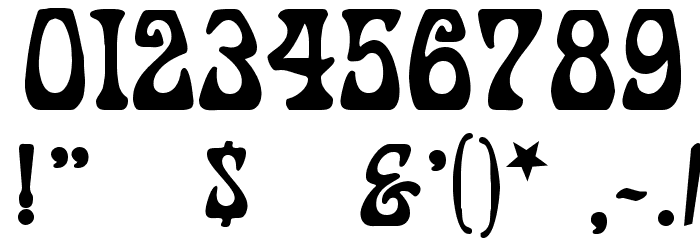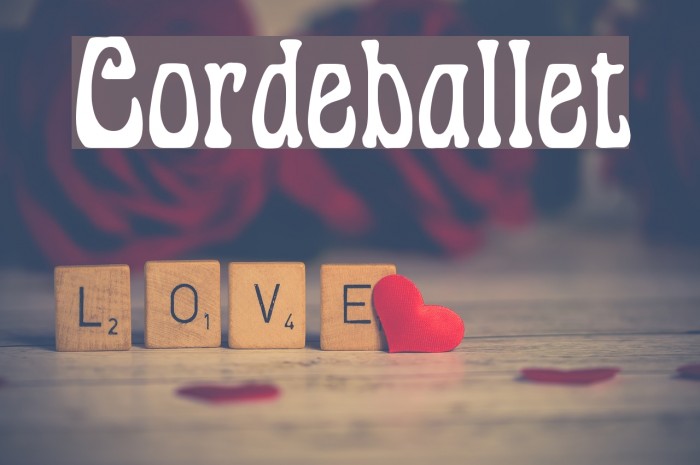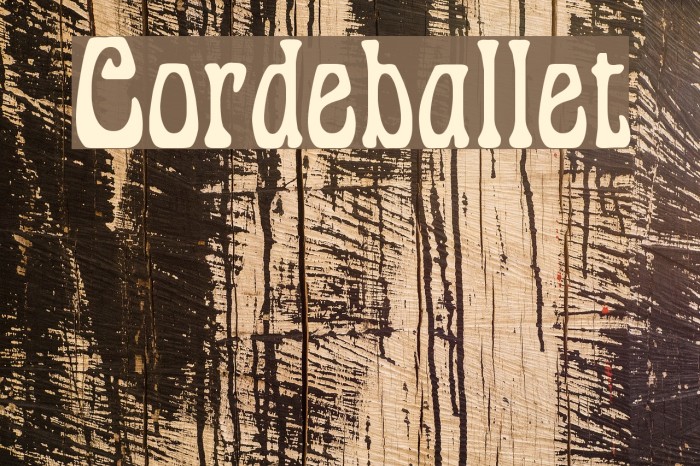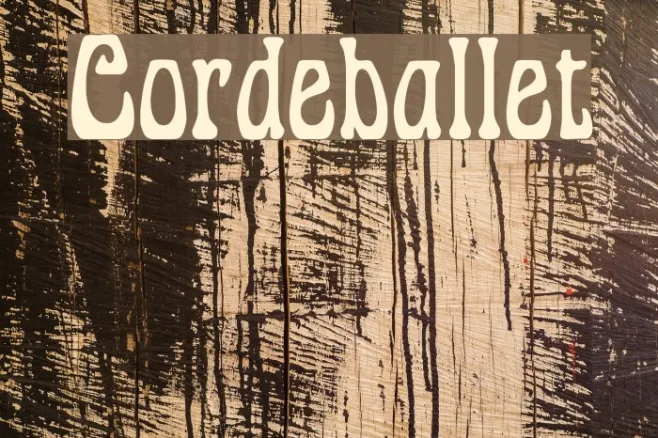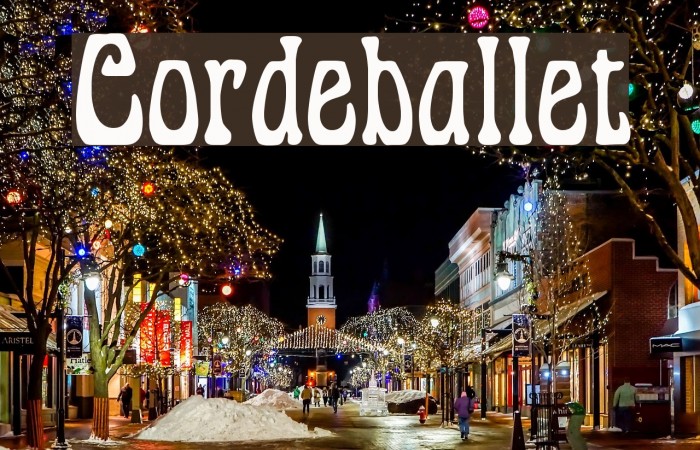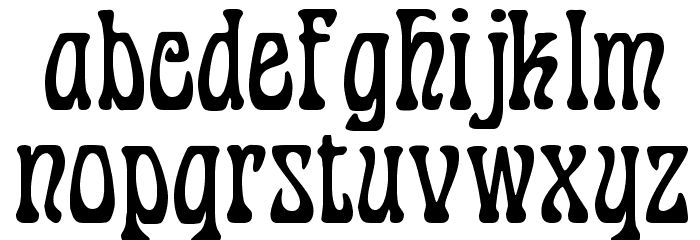
Cordeballet Font
This font features a bold and decorative style with a playful and whimsical flair. The characters are designed with a unique blend of curves and sharp edges, creating a dynamic and eye-catching appearance. The uppercase letters are bold and prominent, while the lowercase letters maintain a consistent style with slightly more intricate details. The numbers are equally bold, ensuring readability and consistency across different uses. Special characters are designed to match the overall aesthetic, adding to the font's versatility. This font is ideal for projects that require a strong visual impact and a touch of creativity.
A bold, decorative font with playful curves and sharp edges.
• Proposed Projects: Ideal for posters, logos, branding, and creative headlines.
• Category: Decorative/Display
• Bold: Yes
• Italic: No
• Weight: Bold
• Width: Normal
• Character Spacing: Normal
• Contrast: Medium
• Overall Style: Decorative
• Use Case: Headlines, Logos, Posters